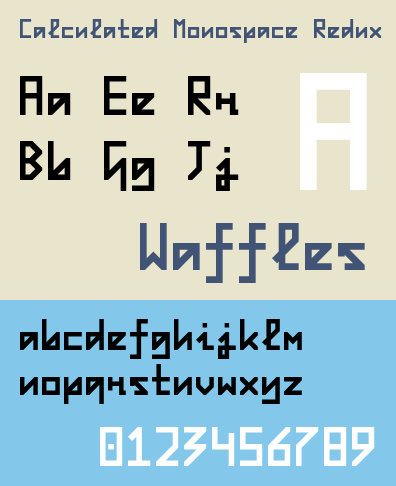
• A monospace font with strokes limited to only 90 or 45 degree angles.
Update 20-May-2024: Differentiated 'u' slightly from 'n'.
This looks like ut was inspired by folded paper bands. The diagonals-to-verticals are a nice design element. Congratulations on the TP
Readability factor is at 0, no offence.
"u" is the same as "n".
you may want to adjust u and n
For some weird reason, your lower case "r" inspired me to make a cursive font.